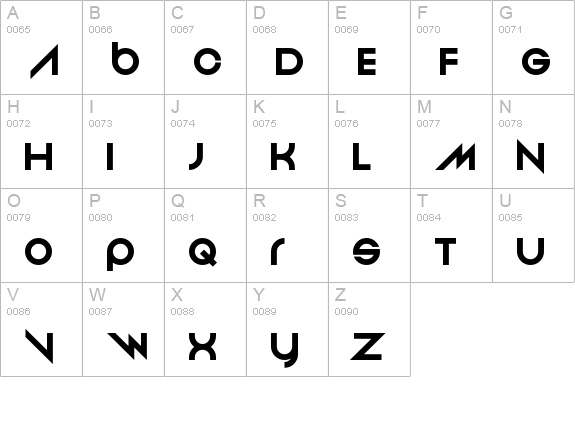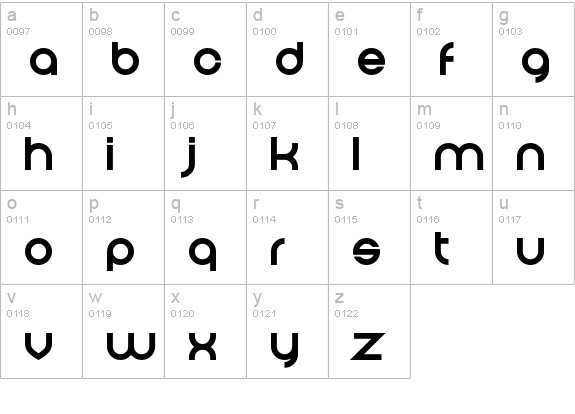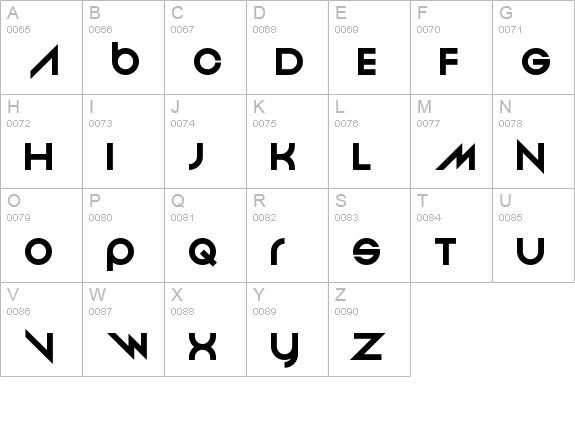
And Then It Ends Font Details
The And Then It Ends font is a captivating typeface that exudes elegance and sophistication. Its sleek and modern design makes it perfect for a wide range of projects, from branding to editorial design. With its clean lines and stylish curves, And Then It Ends offers a timeless aesthetic that is sure to elevate any design it is used in. The best part? And Then It Ends is completely free to download at FontsMarket.com! This means that you can access this stunning font without breaking the bank, making it an ideal choice for designers on a budget. So why wait? Download And Then It Ends today and add a touch of class to your next project.